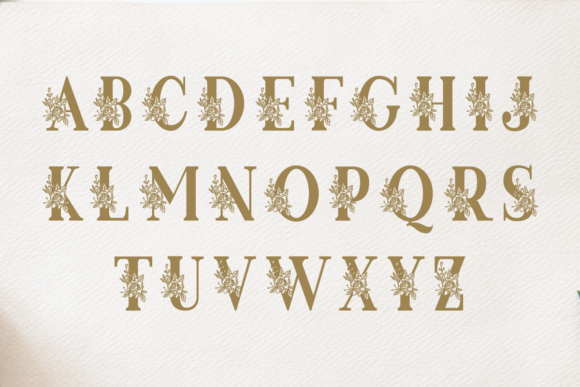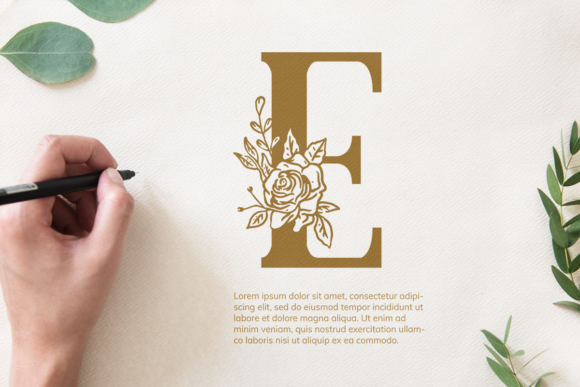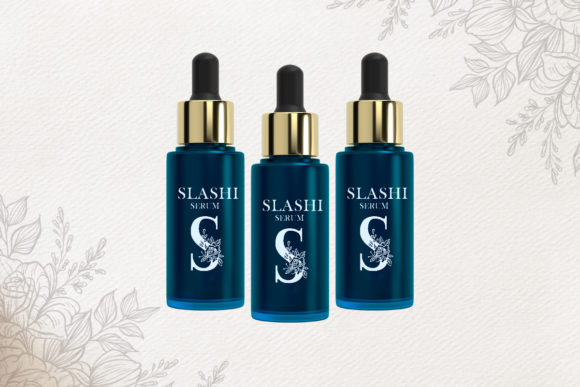
Introduction to Rosena Font
Have you ever been working on a creative project, pouring your heart and soul into it, and then suddenly, the perfect font pops up and takes it to the next level? That’s exactly what happened to many designers when they discovered the beautiful Rosena Font. Its elegant and delicate design adds a touch of romance to any project, making it a must-have in any designer’s toolkit.
Key Features of Rosena Font
- Designed with a unique, elegant aesthetic, making it an excellent choice for creative projects requiring a touch of sophistication.
Honest Review: Rosena Font
As a designer, I’m always on the lookout for high-quality design resources to elevate my creative projects. Recently, I came across the Rosena Font, which I’ll be sharing my honest review of.
The first thing that caught my attention was the elegant and sophisticated design of the font. It’s perfect for projects that require a touch of luxury and sophistication, such as branding, invitations, or even book covers.
- ⚠️ Limited font styles available (only a few options)
- ⚠️ Not suitable for casual or playful projects (due to its sophisticated design)
Overall, I’m impressed with the Rosena Font, and I think it’s a great addition to any designer’s toolkit. While it may have some limitations, its high-quality design and versatility make it a valuable resource for creative projects. I’d definitely recommend it to designers looking for a sophisticated font.